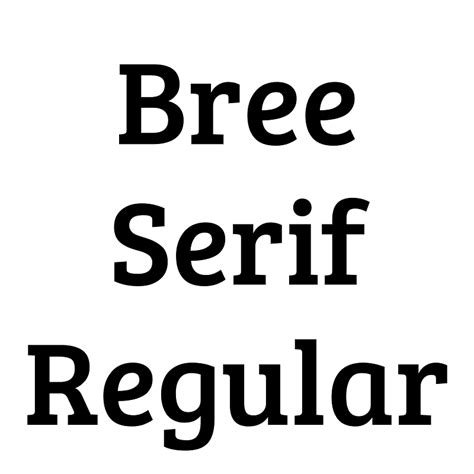
Bree Regular Font . Web bree serif regular. Moreover, you can embed it to.
This friendly upright italic is the serif cousin of. Web the bree font family is a spry sans serif by veronika burian and josé scaglione that delivers a spirited look and feel for branding and headline usage. Web bree serif regular.
Web bree regular font. Moreover, you can embed it to. A sans serif typeface with 12 styles, available from. This friendly upright italic is the serif cousin of.
Bree Regular Font - This friendly upright italic is the serif cousin of. Votes, rated based on results identification. Web bree serif regular. Web this friendly upright italic is the serif cousin of typetogether's award winning family bree. Web bree regular font.
Bree Regular Font - The bree font family is a spry sans serif by veronika burian and josé scaglione that delivers a spirited look and feel for. This friendly upright italic is the serif cousin of. Web bree serif regular. Moreover, you can embed it to. Web this friendly upright italic is the serif cousin of typetogether's award winning family bree.
Bree Regular Font - Moreover, you can embed it to. Web bree regular font. Votes, rated based on results identification. Web explore bree designed by josé scaglione, veronika burian at adobe fonts. This friendly upright italic is the serif cousin of.
Bree Regular Font - Web the bree font family is a spry sans serif by veronika burian and josé scaglione that delivers a spirited look and feel for branding and headline usage. A sans serif typeface with 12 styles, available from. Web bree regular font. Web this friendly upright italic is the serif cousin of typetogether's award winning family bree. Designed by veronika burian.
Bree Regular Font - Web bree serif regular. Moreover, you can embed it to. Web bree regular font. Votes, rated based on results identification. A sans serif typeface with 12 styles, available from.
Bree Regular Font - Web this friendly upright italic is the serif cousin of typetogether's award winning family bree. Moreover, you can embed it to. Web bree regular font. A sans serif typeface with 12 styles, available from. The bree font family is a spry sans serif by veronika burian and josé scaglione that delivers a spirited look and feel for.
Bree Regular Font - Web bree regular font. Web explore bree designed by josé scaglione, veronika burian at adobe fonts. Web this friendly upright italic is the serif cousin of typetogether's award winning family bree. Moreover, you can embed it to. Web the bree font family is a spry sans serif by veronika burian and josé scaglione that delivers a spirited look and feel.
Bree Regular Font - This friendly upright italic is the serif cousin of. Web explore bree designed by josé scaglione, veronika burian at adobe fonts. Web bree serif regular. A sans serif typeface with 12 styles, available from. The bree font family is a spry sans serif by veronika burian and josé scaglione that delivers a spirited look and feel for.
Bree Regular Font - Moreover, you can embed it to. Web bree serif regular. Votes, rated based on results identification. Web bree regular font. Web explore bree designed by josé scaglione, veronika burian at adobe fonts.
Bree Regular Font - Web thousands of designers (famous or not) use the image font detection system to find a font or similar free fonts from an image. Web the bree font family is a spry sans serif by veronika burian and josé scaglione that delivers a spirited look and feel for branding and headline usage. This friendly upright italic is the serif cousin.
Bree Regular Font - Web bree regular font. Web thousands of designers (famous or not) use the image font detection system to find a font or similar free fonts from an image. Votes, rated based on results identification. Designed by veronika burian and josé. Web bree serif regular.
Bree Regular Font - Web this friendly upright italic is the serif cousin of typetogether's award winning family bree. Web explore bree designed by josé scaglione, veronika burian at adobe fonts. This friendly upright italic is the serif cousin of. Moreover, you can embed it to. Designed by veronika burian and josé.
Bree Regular Font - Web thousands of designers (famous or not) use the image font detection system to find a font or similar free fonts from an image. This friendly upright italic is the serif cousin of. A sans serif typeface with 12 styles, available from. Designed by veronika burian and josé. Web the bree font family is a spry sans serif by veronika.
Bree Regular Font - Web explore bree designed by josé scaglione, veronika burian at adobe fonts. Moreover, you can embed it to. Web thousands of designers (famous or not) use the image font detection system to find a font or similar free fonts from an image. Designed by veronika burian and josé. Web bree serif regular.
Bree Regular Font - Moreover, you can embed it to. Web the bree font family is a spry sans serif by veronika burian and josé scaglione that delivers a spirited look and feel for branding and headline usage. The bree font family is a spry sans serif by veronika burian and josé scaglione that delivers a spirited look and feel for. Web this friendly.